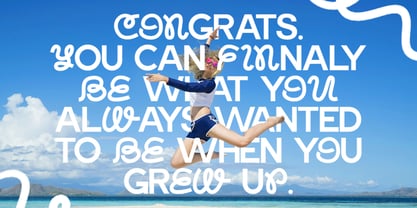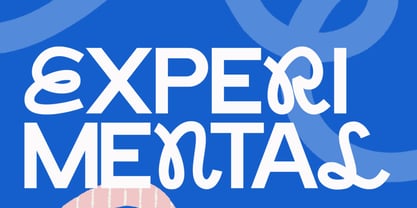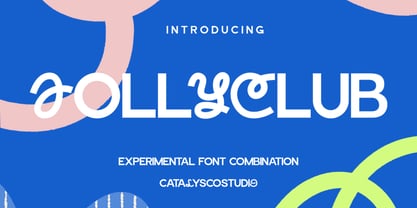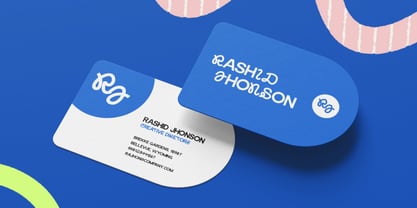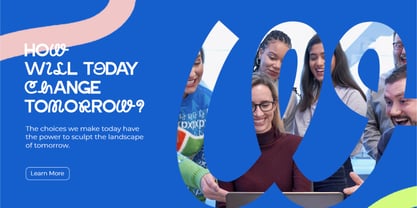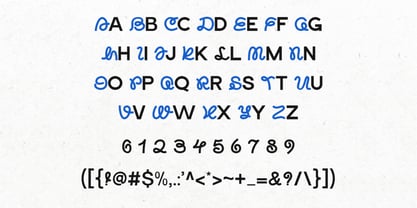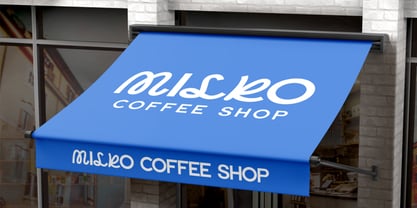
Jolly Club
The Jolly Club Font Family was designed by and published by Catalystco Std. Jolly Club contains 1 styles. More about this family
Jollyclub is an experimental display font that fuses geometric precision with playful handwritten twists. This hybrid concept combines a clean sans-serif structure with expressive looped letterforms, resulting in a unique visual rhythm that feels both modern and artistic. Each letter carries a sense of motion and creativity — perfect for projects that aim to stand out with personality. Featuring uppercase, numerals, and punctuation, Jollyclub offers versatility for bold headlines, fun branding, packaging, and creative posters. It’s a lively font that celebrates contrast, imagination, and contemporary style in a single, unified typeface.